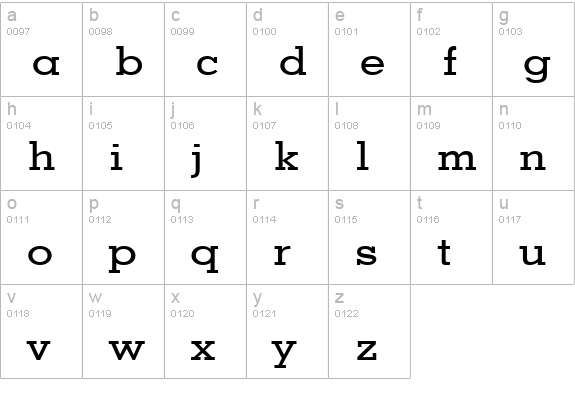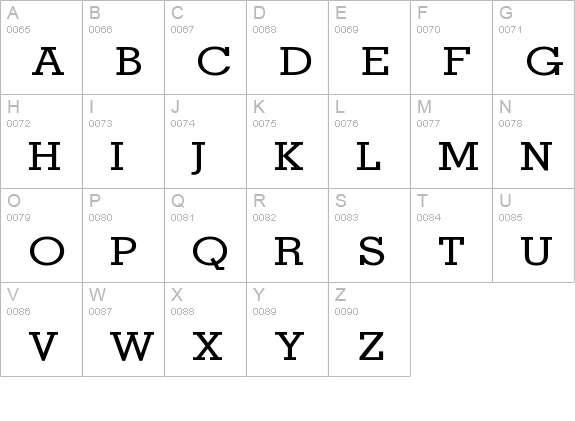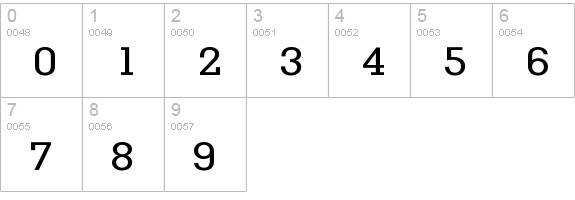
Geo Wide Normal is the standard, neutral, extended-width variant in the Geo typeface family \xE2\x80\x94 well suited to general body text, paragraphs, and standard typographic work.
Introducing Geo Wide Normal font - a versatile and modern typeface that is perfect for various design projects. This font features a sleek and elegant design with wide letterforms that make it stand out. The Geo Wide Normal font is ideal for creating eye-catching headlines, posters, logos, and more. The best part about the Geo Wide Normal font is that it is available for free download at FontsMarket.com. This means that you can easily access this stylish font and use it in your projects without any cost. Whether you are a graphic designer, web developer, or anyone looking to enhance their designs, the Geo Wide Normal font is a great choice. With its clean lines and contemporary look, the Geo Wide Normal font is sure to make your designs pop. Don't miss out on this fantastic font - download it for free today and take your projects to the next level!